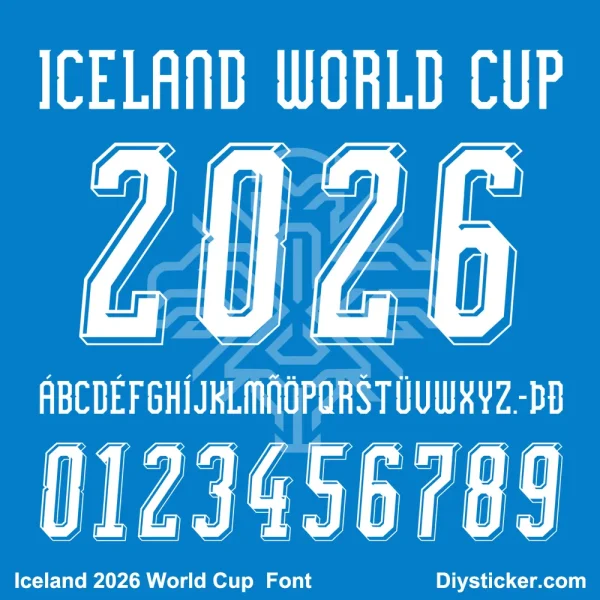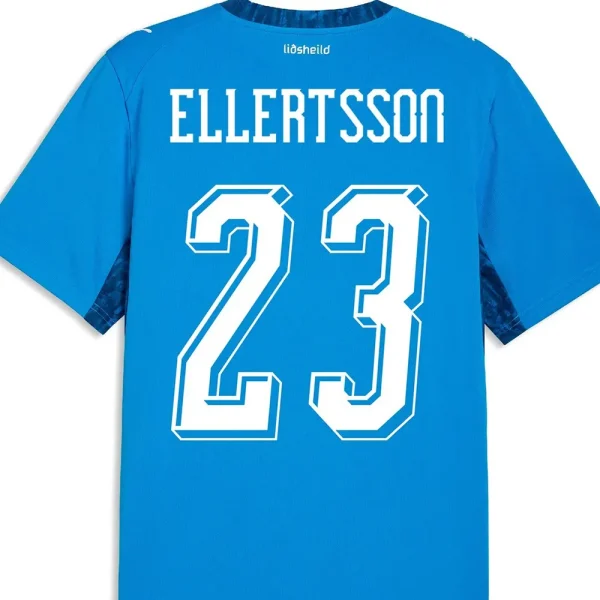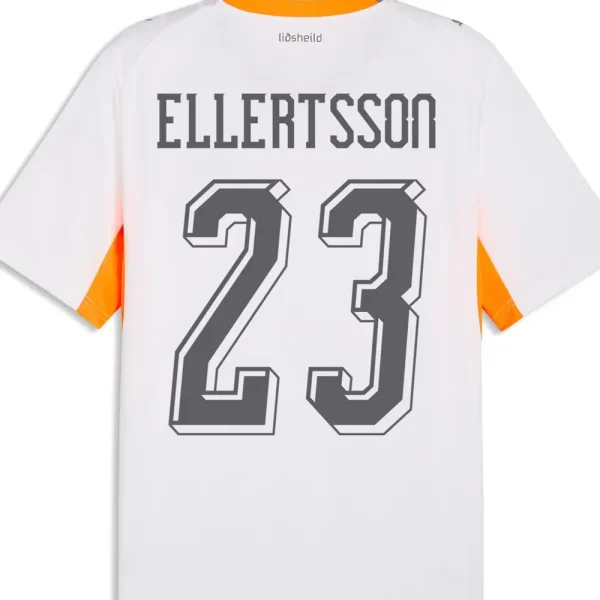
Iceland 2026 World Cup Font – Complete Vector Set
Celebrate the Viking spirit with the Iceland 2026 World Cup Font. This digital typeface is inspired by the bold, clean typography associated with Iceland’s football identity and their journey toward the 2026 FIFA World Cup, co-hosted by the USA, Canada, and Mexico.
Iceland captured the world’s attention with their legendary Viking clap and underdog success. Now you can bring that same bold, no-nonsense Scandinavian aesthetic to your design projects. The font features strong, geometric letterforms with excellent legibility – perfect for modern sportswear and fan merchandise.
Key Features
Uppercase A–Z, numbers 0–9, and hyphen
Clean, geometric, and modern letterforms
Bold Scandinavian-inspired design